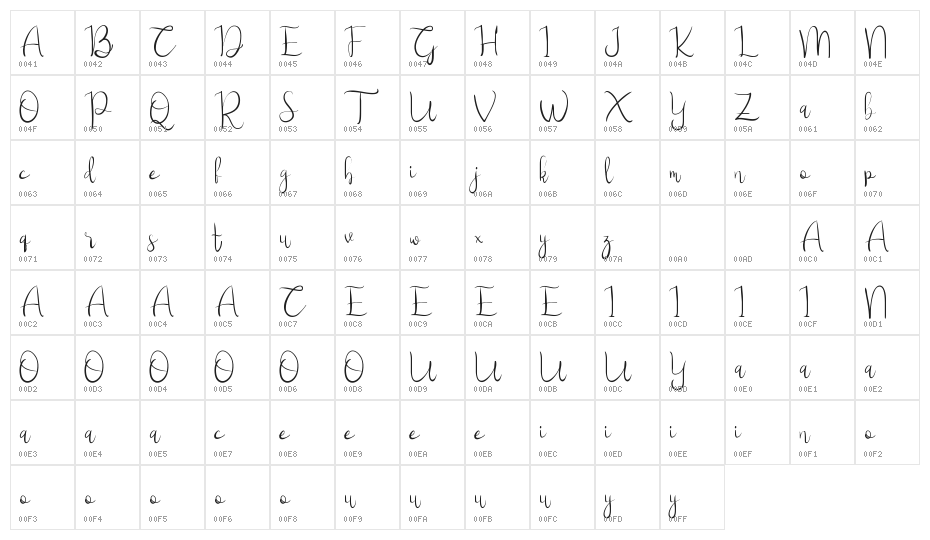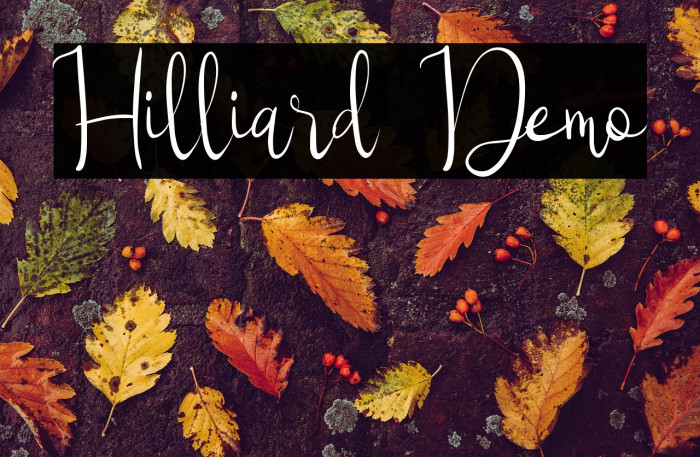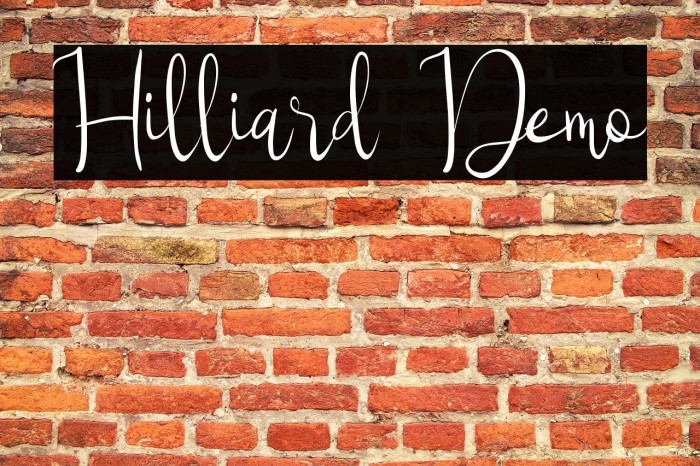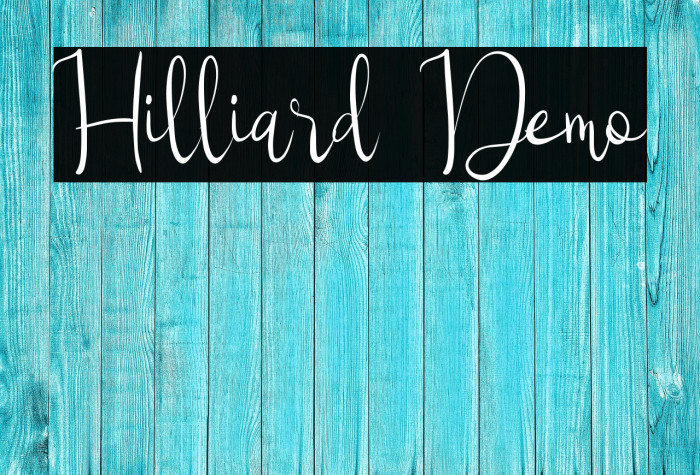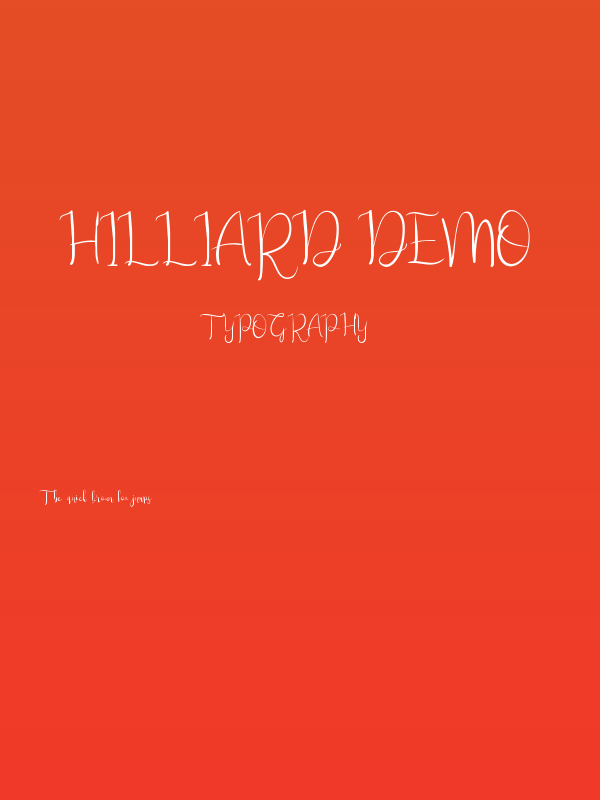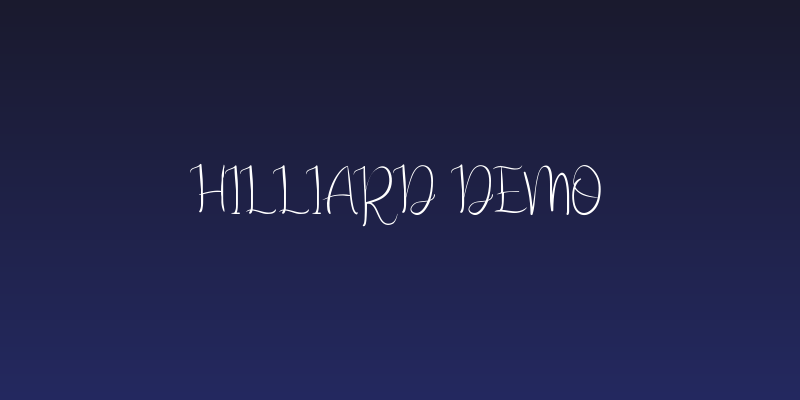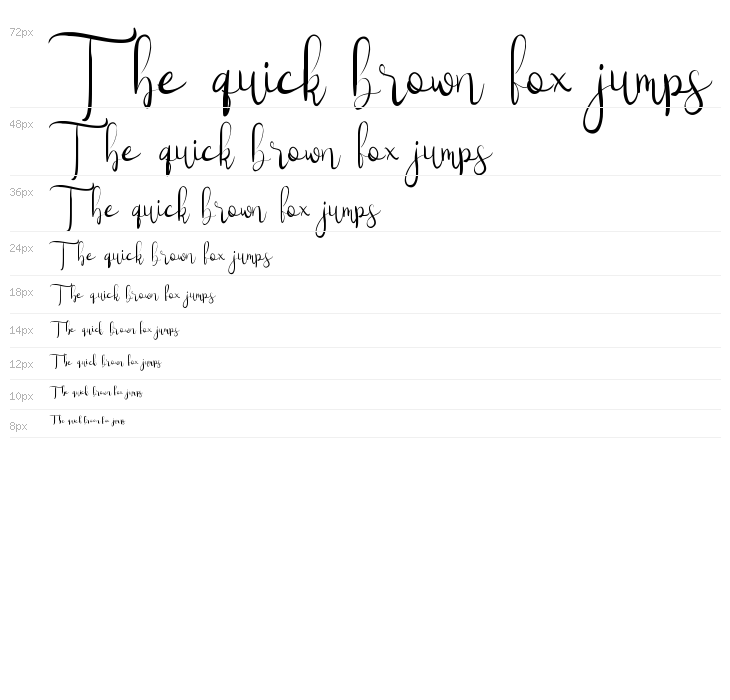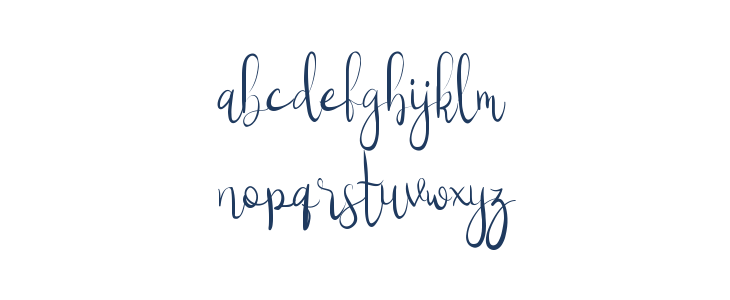
Hilliard Demo Font
Hilliard Demo Description
This font features a whimsical and elegant script style, characterized by its flowing and interconnected letterforms. The uppercase letters are tall and slender, with a graceful loop and curve that adds a touch of sophistication. The lowercase letters maintain a consistent flow, with some letters featuring unique flourishes that enhance the overall aesthetic. The font's playful yet refined appearance makes it suitable for creative and artistic projects. Its delicate strokes and smooth transitions between letters give it a hand-drawn feel, perfect for adding a personal touch to any design.
| Proposed Projects | Ideal for wedding invitations, greeting cards, branding, and artistic projects requiring a personal touch. |